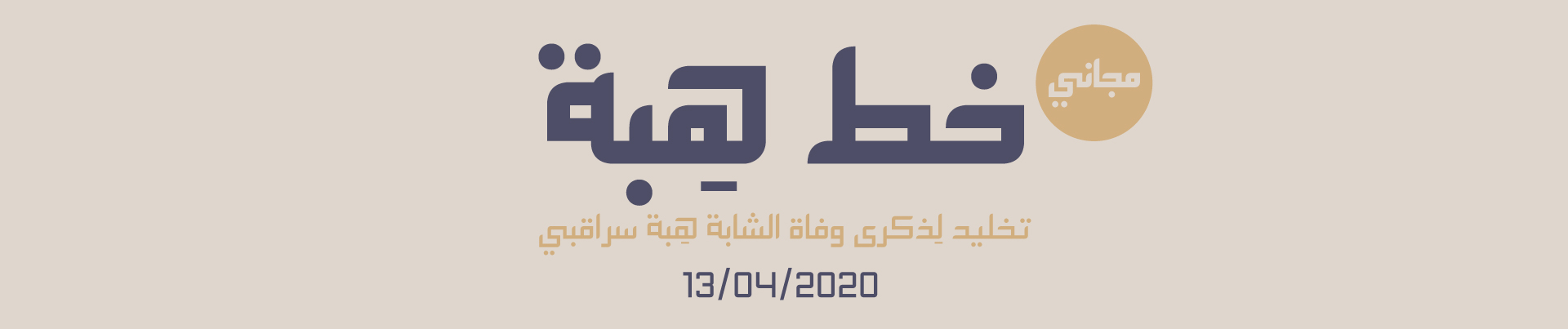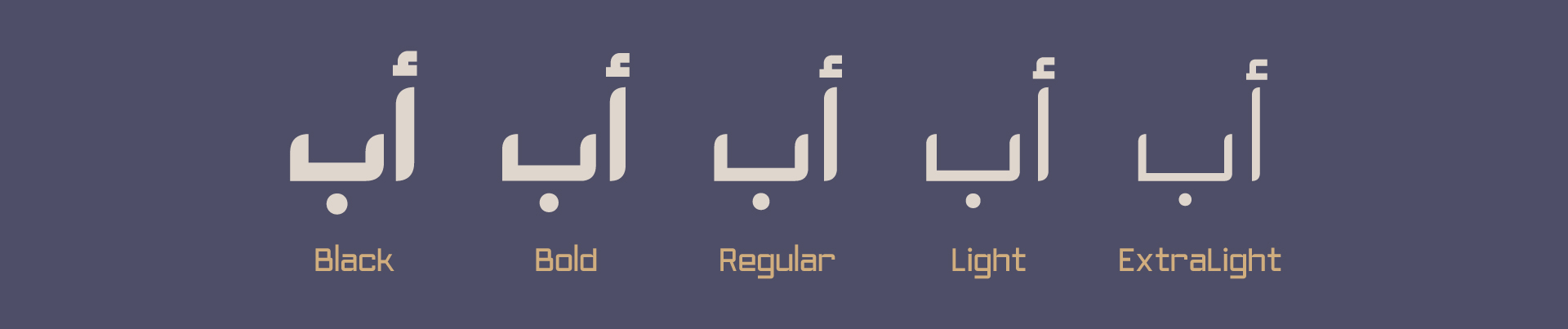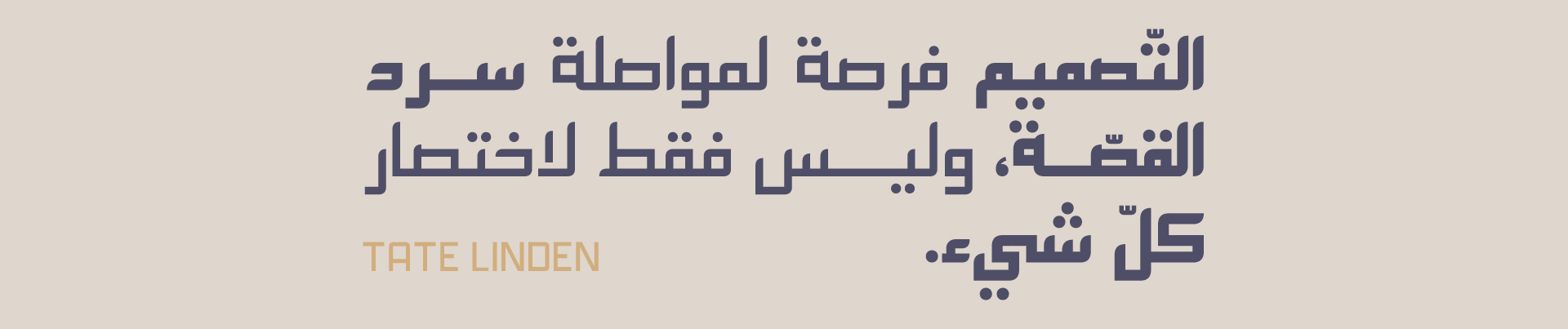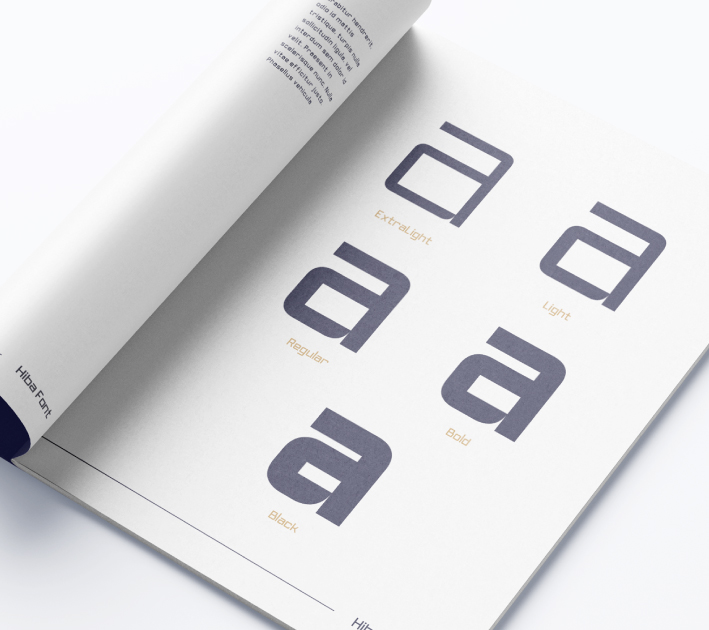
About Hiba Font
Introduction:
Hiba font is a geometric Kufic Font, It is easy and clear to read.
Weights and Supported Languages:
It has 5 weights and supports Arabic & English
Usage:
It is suitable for texts, headlines, and social media posters.
Designing & Developing:
TSfonts Type Foundry
Tarek Alsawwa